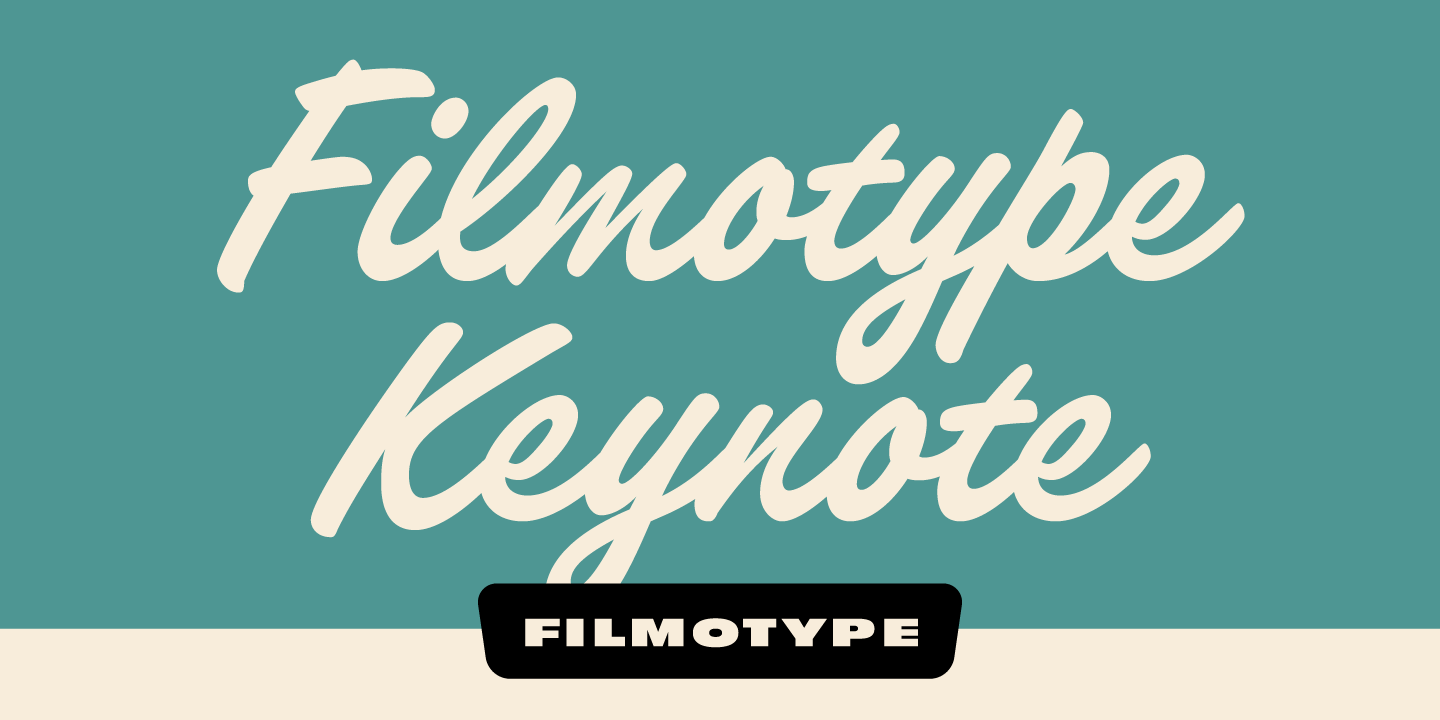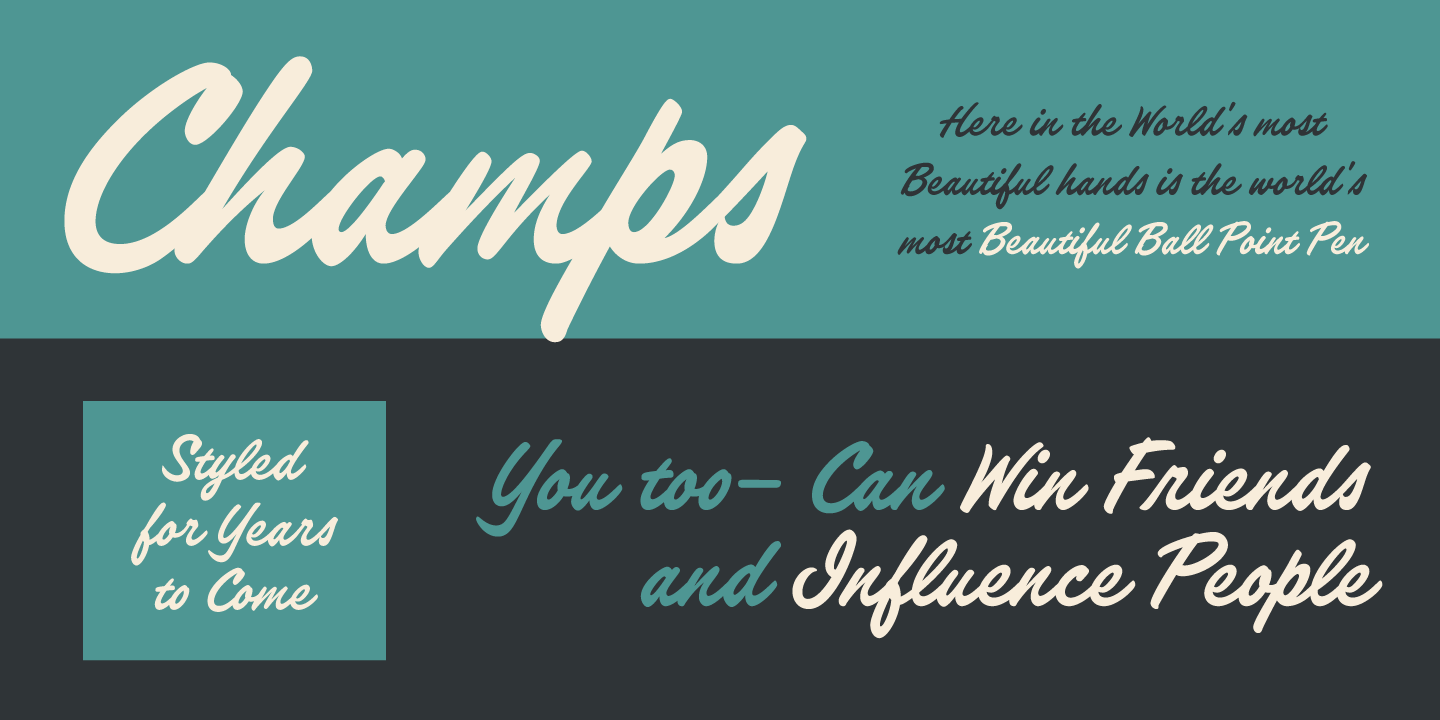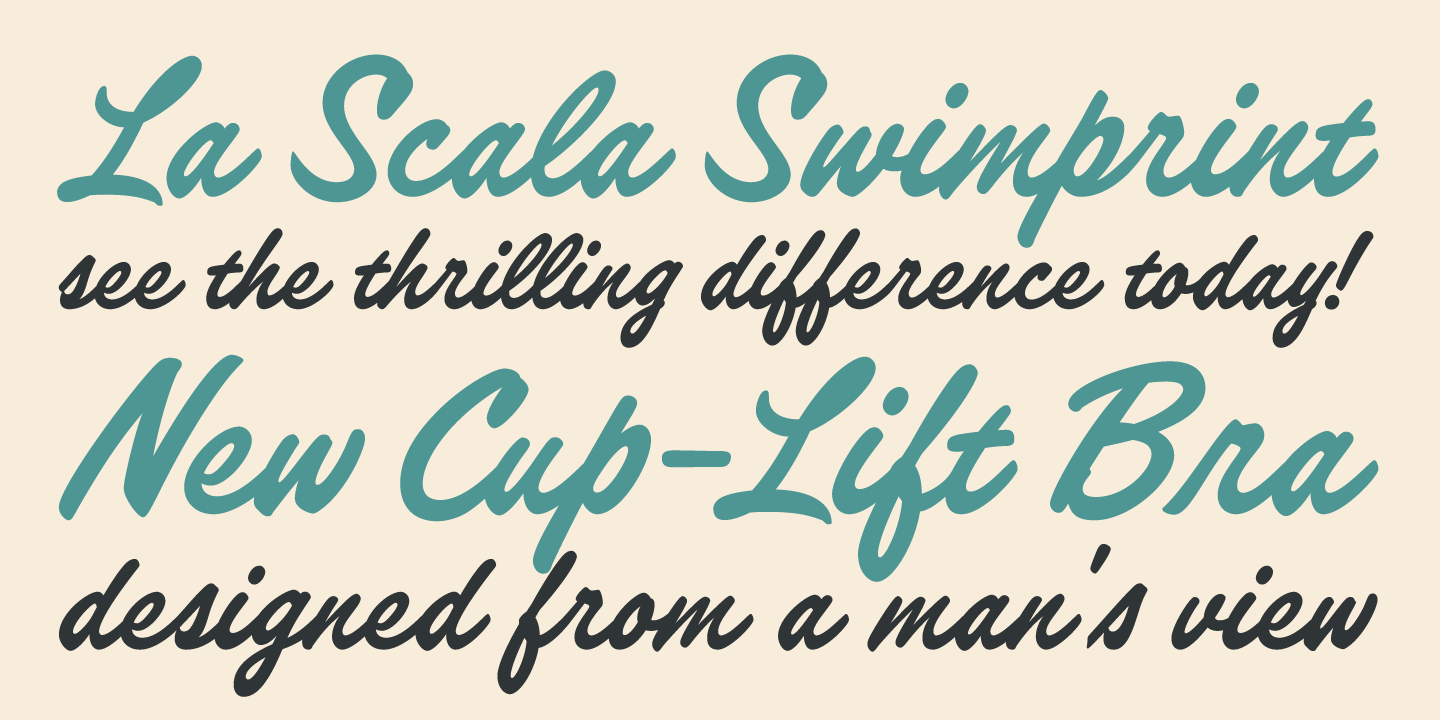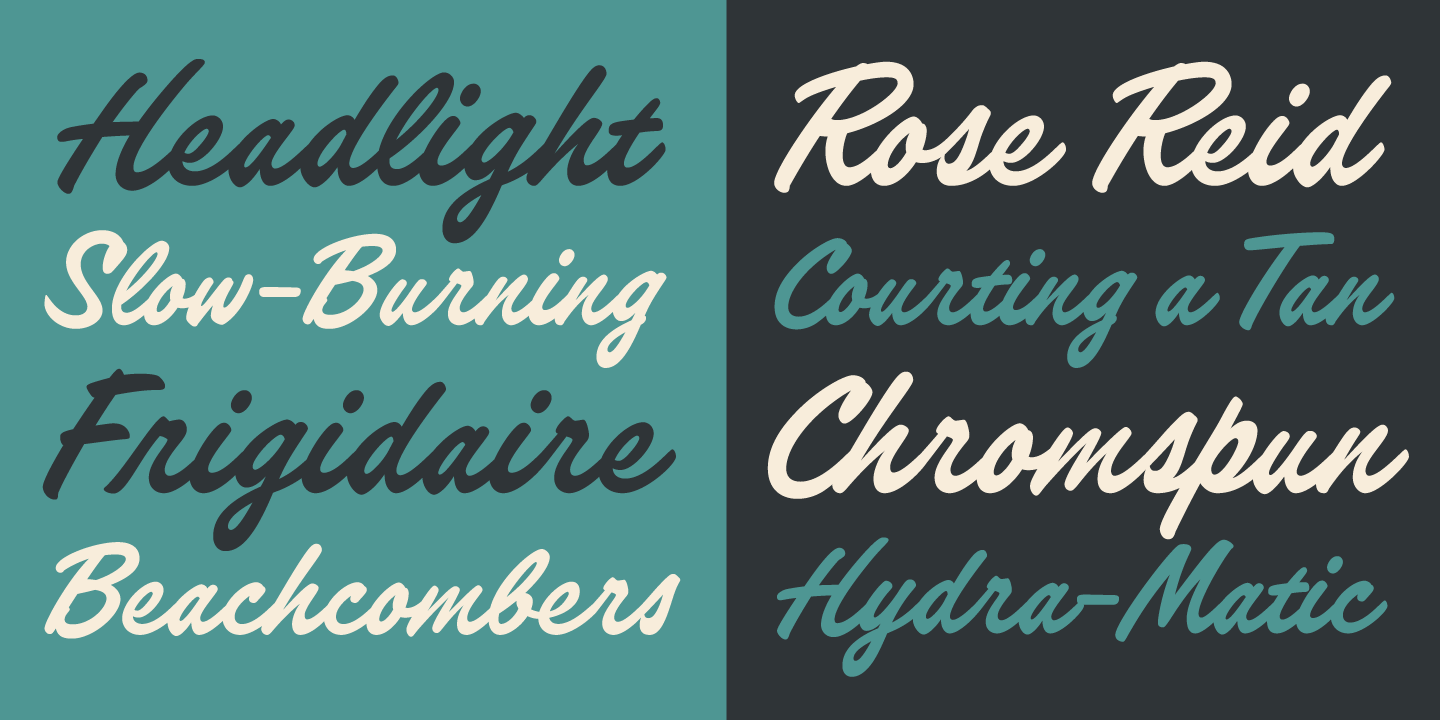
Filmotype Keynote
Font Family by Filmotype
Filmotype Keynote is a single-style script font with a distinctly retro voice, blending casual movement with a more polished, formal feel. Its period-inspired character fits comfortably alongside Art Deco and mid-century visual language, giving layouts a stylish, nostalgic tone without feeling stiff.
With references spanning the 1920s through the 1960s, this design is well suited to vintage-minded branding, poster work, packaging, signage, invitations, and other display uses where expressive lettering can carry the message. If you want a script that feels classic, cinematic, and full of old-school charm, this family brings that atmosphere in one focused Regular style.